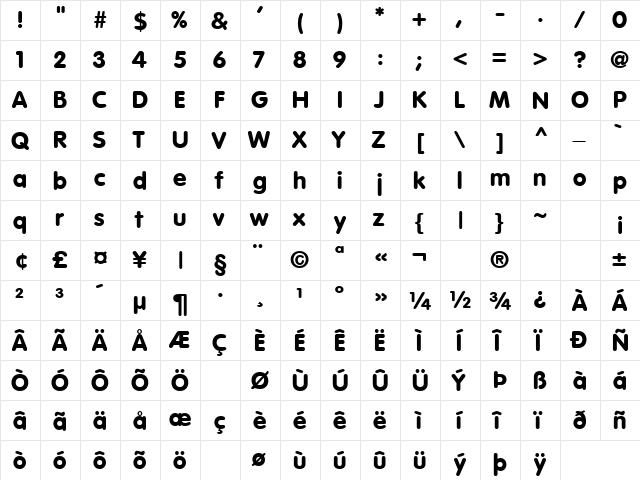
Lemons 14 Bold Font Preview
Lemons 14 Bold
Lemons 14 Bold Font Details
Design Context for Lemons 14 Typeface
Lemons 14 is a composed and adaptable typeface that performs quietly and consistently across a wide range of design contexts. The heavy weight commands attention and anchors typographic hierarchies.
Pro Tip: Use Lemons 14 in both headline and body roles to test its range before committing to a single application.